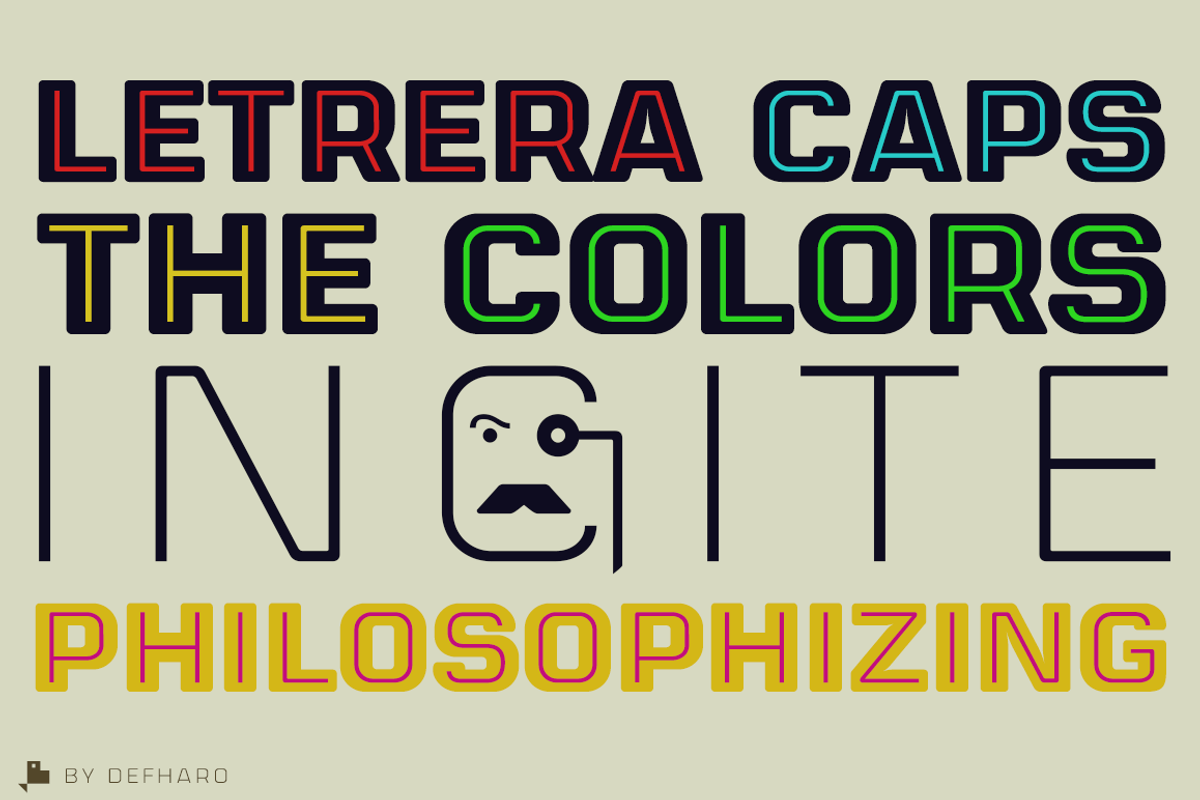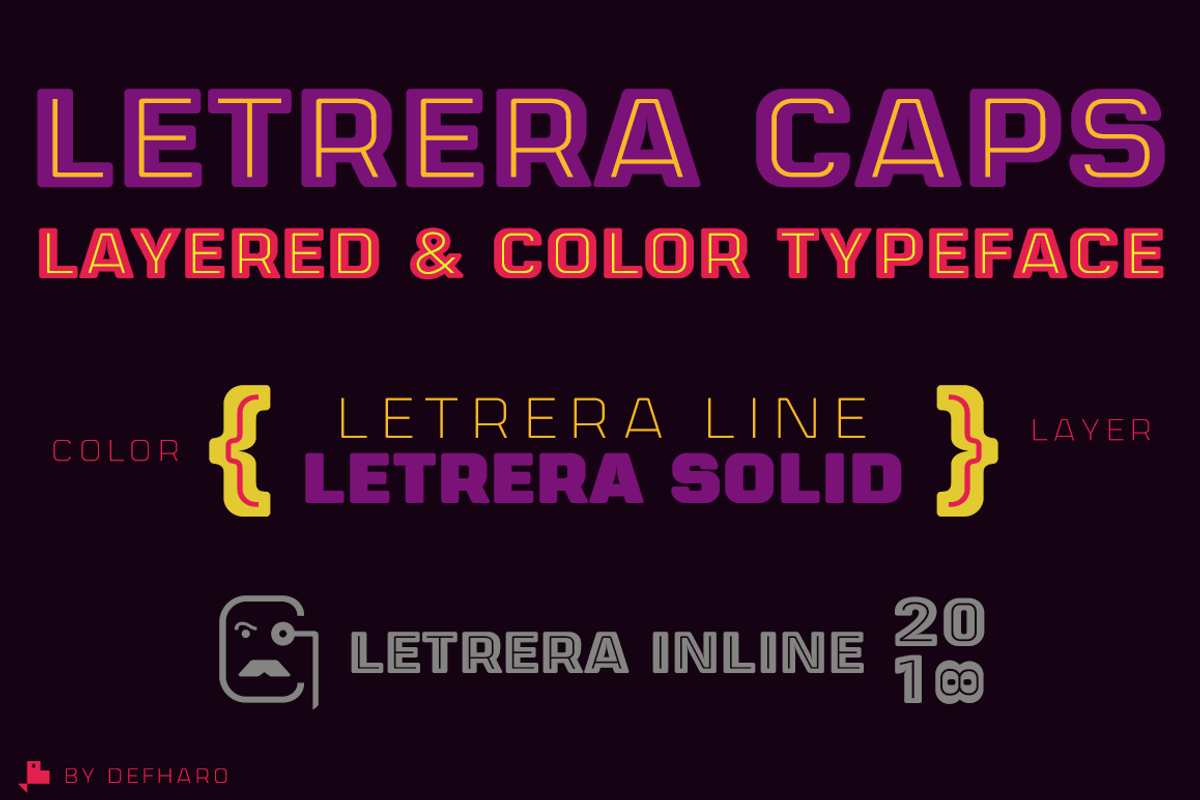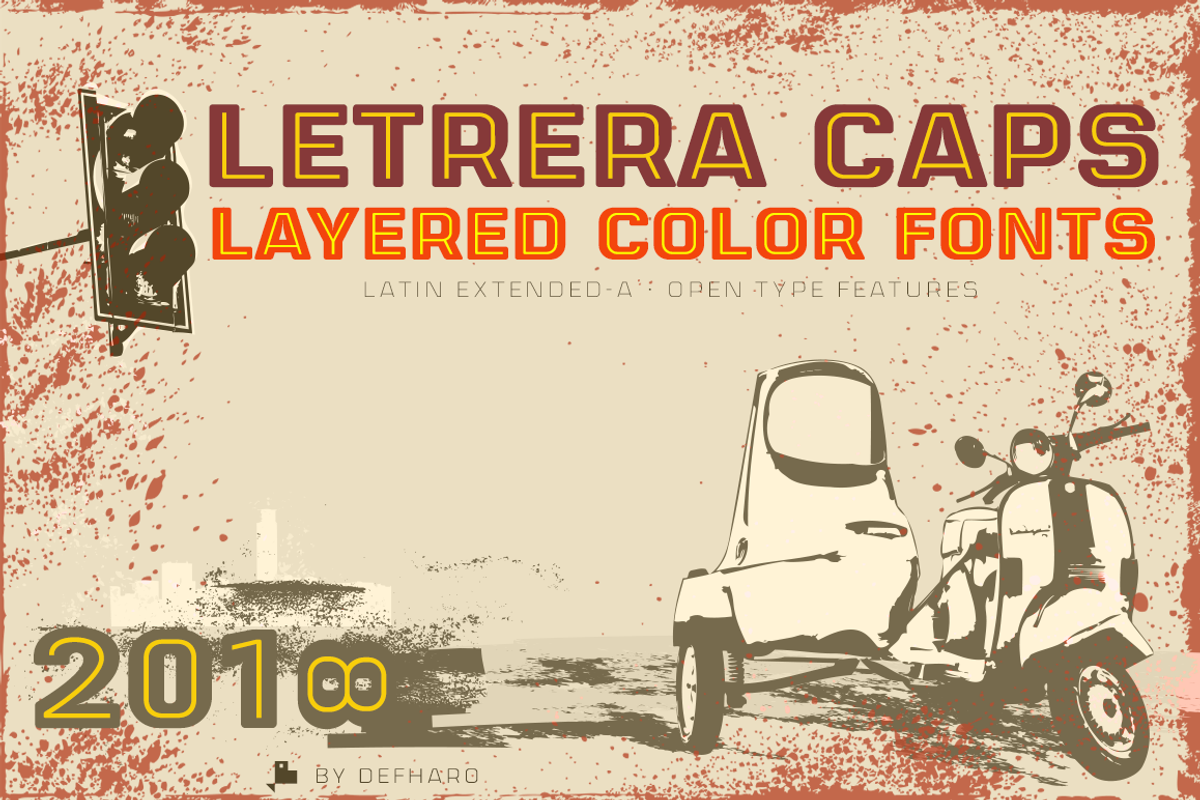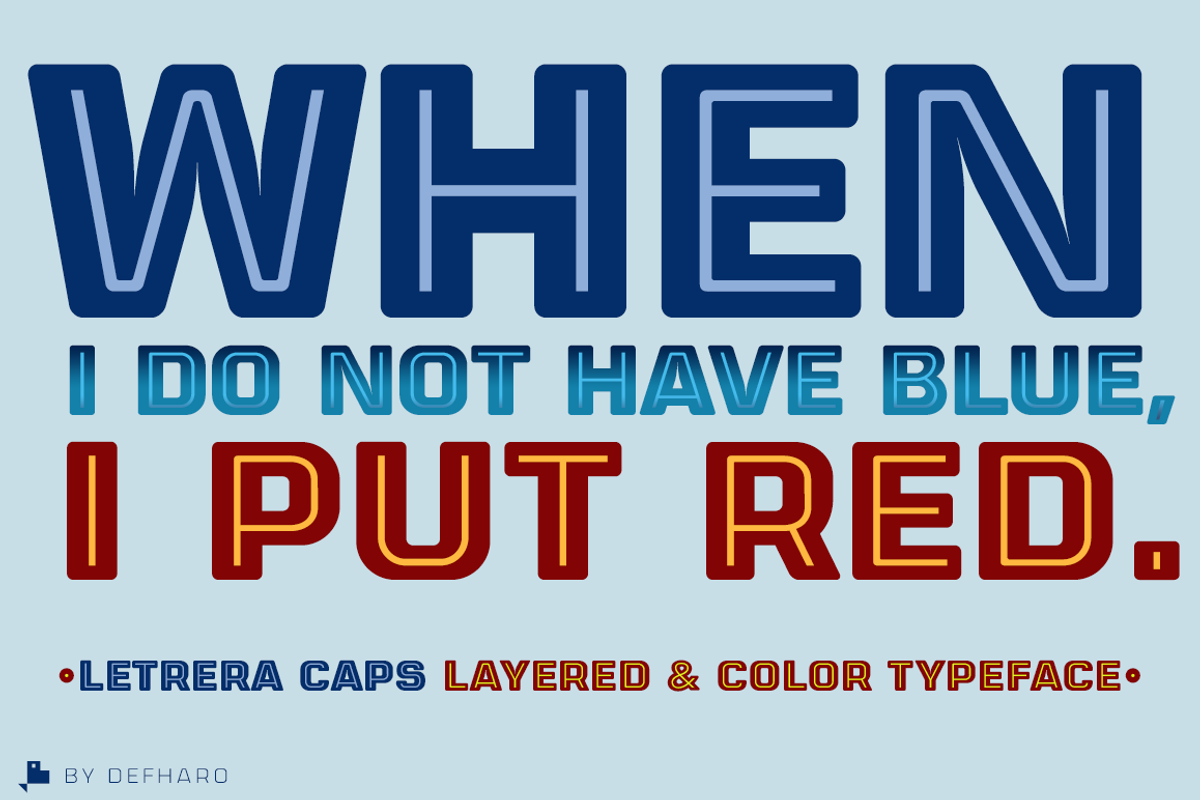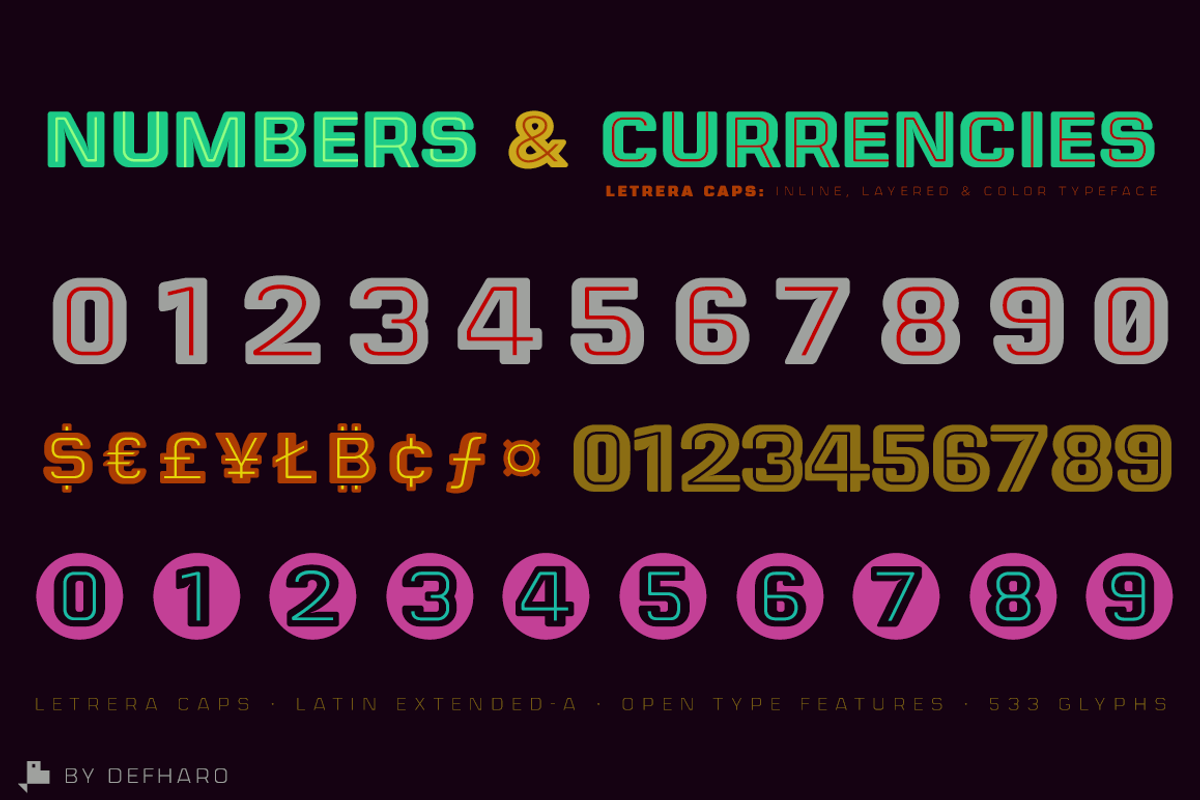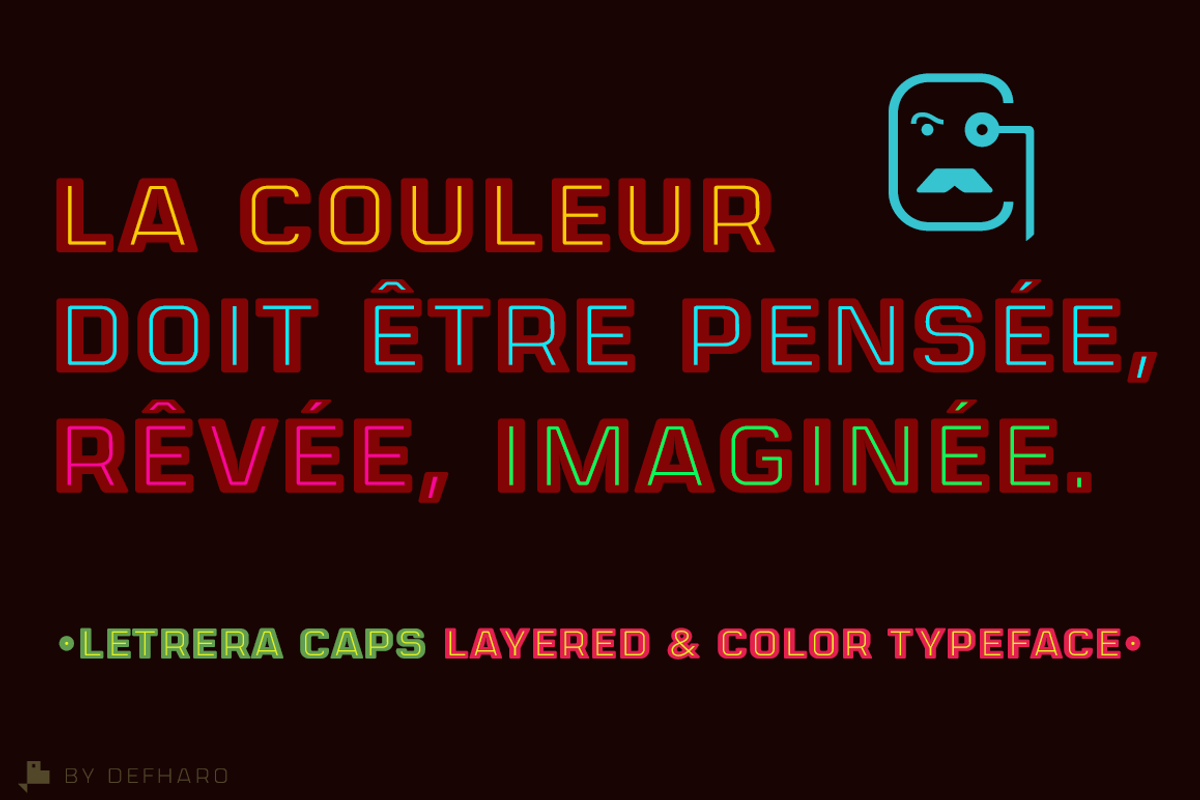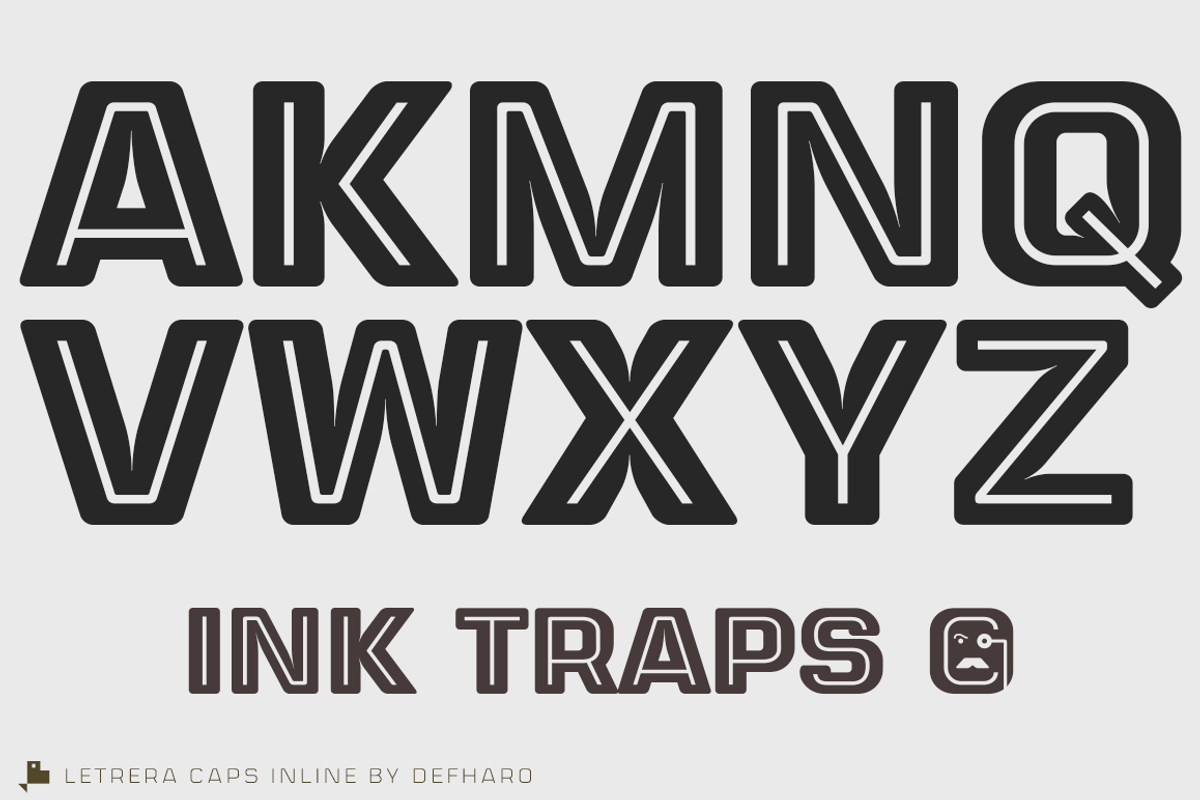
Letrera Caps -Layered & Color Fonts-
Letrera Caps Layered & Color Fonts is a rounded square-typed display type with three styles that pays homage to the Sans Serif Inline letters, which are very popular in the design of colorful signs and signs from the mid-20th century.
Letrera Caps Inline: I have drawn a closed inner line (Inline) in each uppercase letter and sign, the width of this line is 1/6 of the original width of the antlers, the "lowercase" have the same Inline but with leakage, try them!
Letrera Caps Solid: Very thick Sans font of square proportions and rounded antlers, is a very compact typeface to create good headlines. Perfect for multicolored titles combining it below with the Line version.
Letrera Caps Line: The version (Line) from the inner line named before, this version works very well individually and also in combination by layers with the Solid version, being able to compose with the two infinite purely typographical titles.